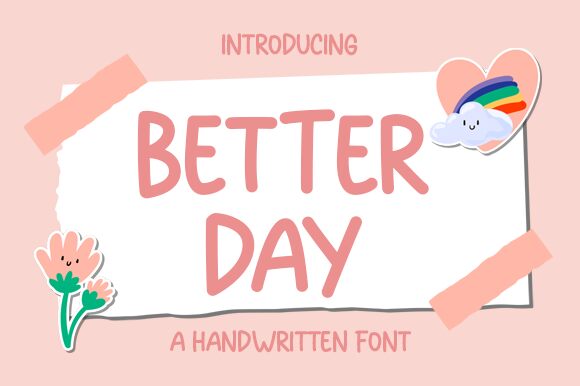
Better Day
Better Day, the handwritten font by Graphix Line Studio, exudes warmth and positivity. With its natural curves and playful style, it's perfect for projects that aim to evoke a sense of comfort and familiarity. Use the semi-bold font for headings on recipe blogs, or the regular width for heartfelt greeting cards. Better Day is also suitable for branding projects that seek to convey a personal touch, such as small businesses or wellness products. Whether you're designing a cozy coffee shop menu or creating social media graphics that radiate joy, Better Day is sure to spread good vibes.